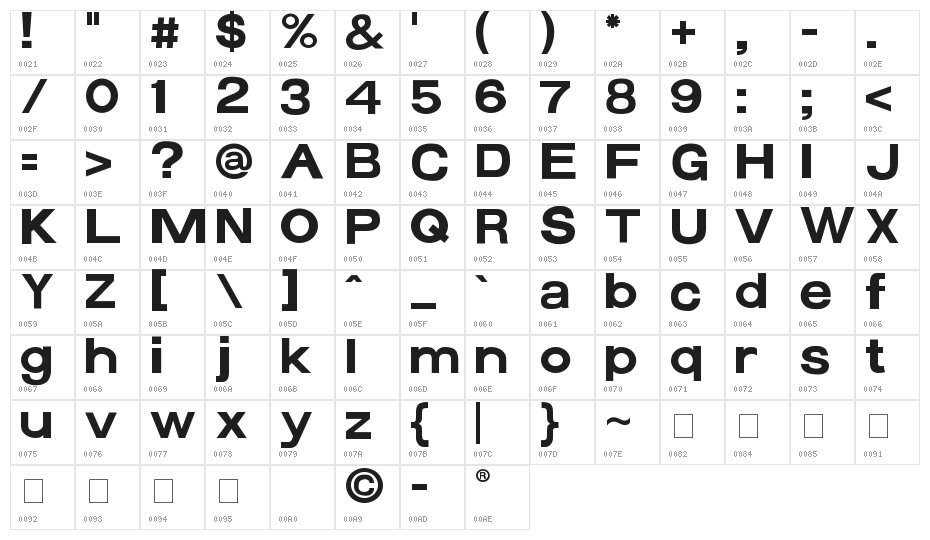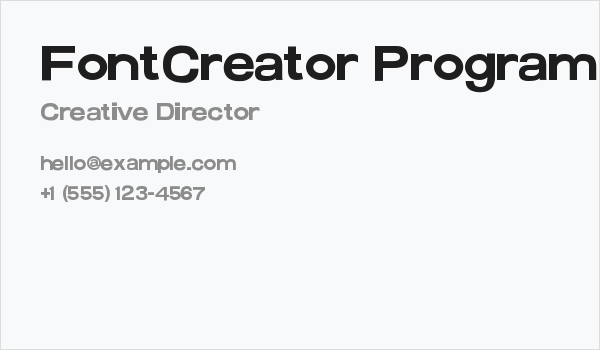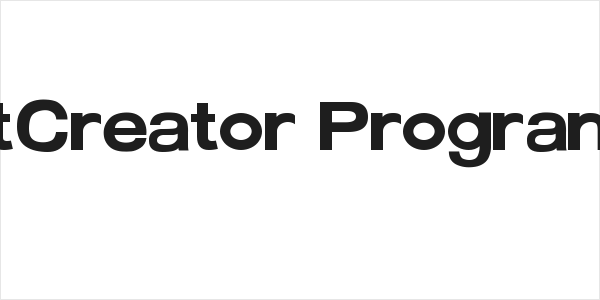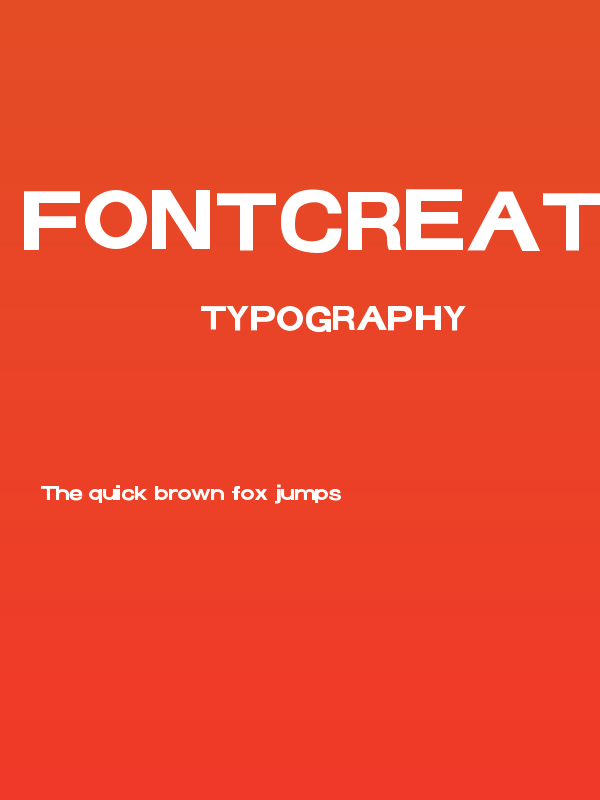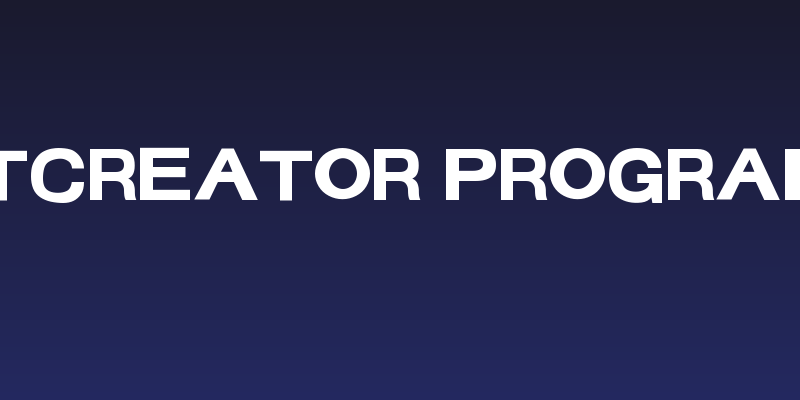
FontCreator Program 4-1 Font
FontCreator Program 4-1 Description
This font features a bold and modern sans-serif design, characterized by clean lines and a strong geometric structure. The uppercase and lowercase letters maintain a consistent weight, providing a uniform appearance across all characters. The numerals are equally bold, ensuring readability and impact. Special characters are designed with the same attention to detail, making them suitable for various applications. The overall style is contemporary, with a focus on clarity and simplicity, making it versatile for both digital and print media.
| Use Case | Headlines, Logos, Digital interfaces |
| Proposed Projects | Ideal for branding, advertising, headlines, and digital interfaces where clarity and impact are essential. |